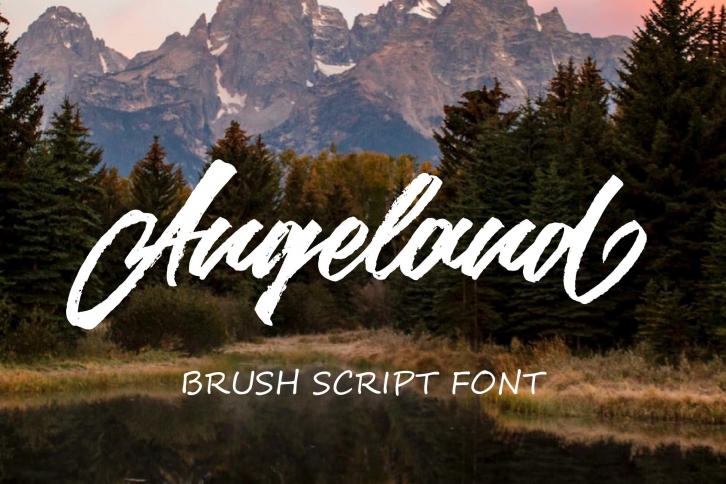
Angeland would be perfect for photography, watermarks, social media posts, advertisements, logos & branding, invitations, product design, labels, stationery, wedding designs, product packaging, special events, and other projects.